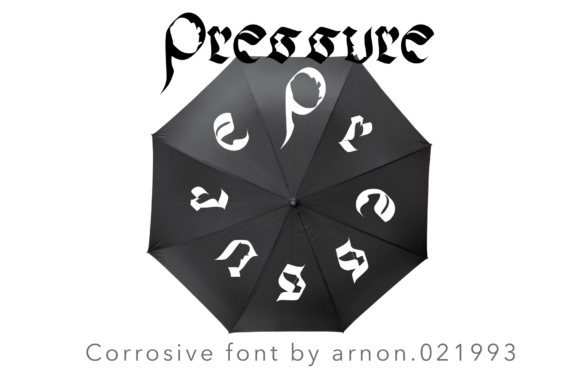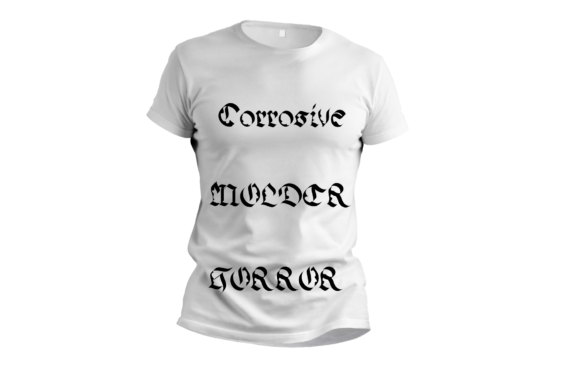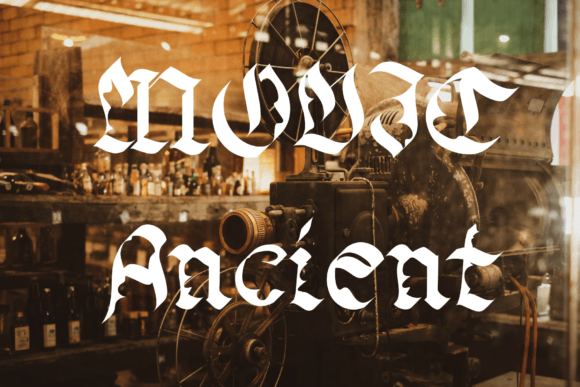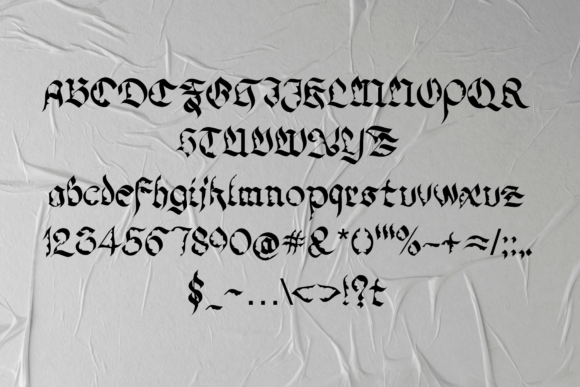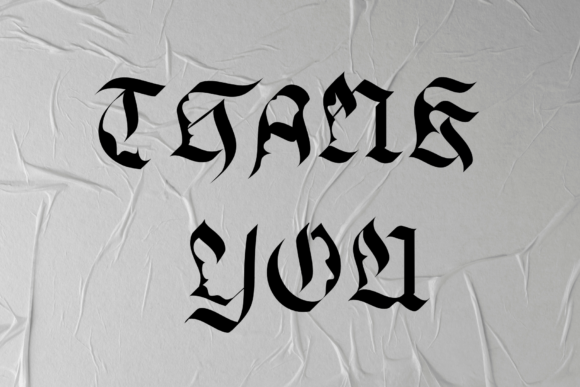
Discover the Edgy Charm of Corrosive Font: A Quirky Display Font for Creative Projects
Are you tired of using the same old fonts in your designs? Look no further than Corrosive, a unique and interesting display font that’s sure to add a touch of edginess to your creative projects. With its quirky charm and versatility, Corrosive is perfect for designers and crafters looking to make a statement.
What Makes Corrosive Font So Special?
Corrosive is a one-of-a-kind display font that boasts a distinctive, corroded look that’s sure to grab attention. Its unusual design makes it incredibly adept in a wide variety of contexts, from bold headlines and titles to creative branding and packaging. Whether you’re working on a graphic design project, crafting a DIY project, or simply looking for a unique font to add to your collection, Corrosive is an excellent choice.
Key Features of Corrosive Font
- Unique and quirky design: Corrosive’s corroded look sets it apart from other fonts, making it perfect for designers and crafters who want to add a touch of edginess to their work.
- Versatile: Corrosive can be used in a wide range of contexts, from bold headlines and titles to creative branding and packaging.
- Display font: Corrosive is specifically designed as a display font, making it perfect for large text and headlines.
- Easy to read: Despite its corroded look, Corrosive is surprisingly easy to read, making it a great choice for designs where legibility is important.
How to Use Corrosive Font in Your Designs
Corrosive is an incredibly versatile font that can be used in a wide range of design projects. Here are a few ideas to get you started:
- Headlines and titles: Use Corrosive to add a bold, eye-catching touch to your headlines and titles.
- Branding and packaging: Corrosive’s unique design makes it perfect for creative branding and packaging projects.
- Graphic design: Add a touch of edginess to your graphic design projects with Corrosive.
- DIY projects: Corrosive is also perfect for crafters and DIY enthusiasts looking to add a unique touch to their projects.
Tips for Getting the Most Out of Corrosive Font
To get the most out of Corrosive, here are a few tips to keep in mind:
- Experiment with different sizes: Corrosive looks great in large text, but it can also be used in smaller sizes to add a touch of subtlety to your designs.
- Pair with other fonts: Corrosive pairs well with a wide range of fonts, so don’t be afraid to experiment with different combinations.
- Use it sparingly: Corrosive is a bold font, so use it sparingly to avoid overwhelming your design.
| Author | arnon.021993 |
Corrosive is a unique and interesting display font that’s sure to add a touch of edginess to your creative projects. With its quirky charm and versatility, it’s perfect for designers and crafters looking to make a statement. Whether you’re working on a graphic design project, crafting a DIY project, or simply looking for a unique font to add to your collection, Corrosive is an excellent choice.
So why not give Corrosive a try? With its bold, corroded look and incredible versatility, it’s sure to become a favorite in your design arsenal.